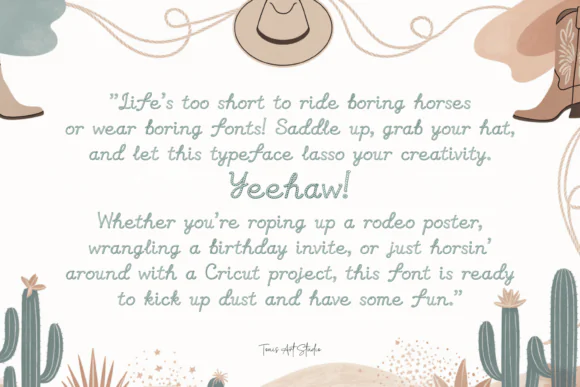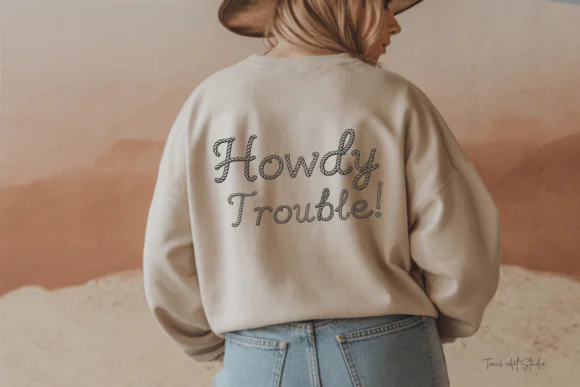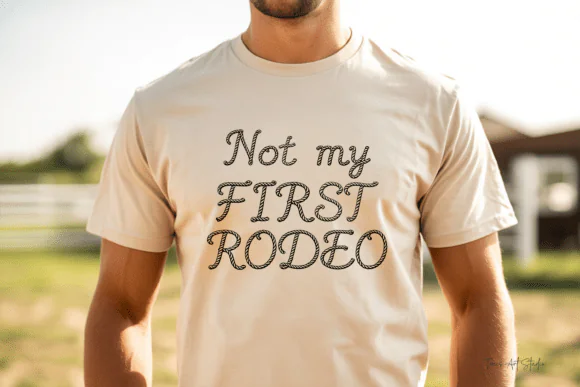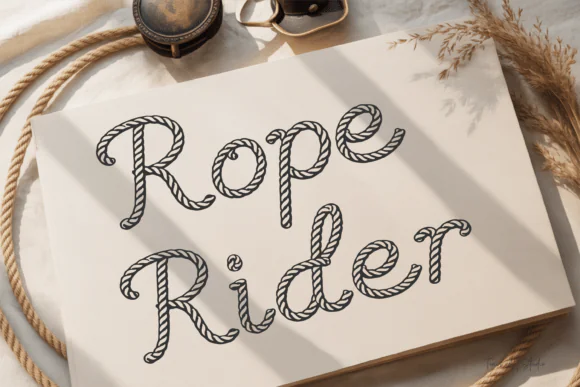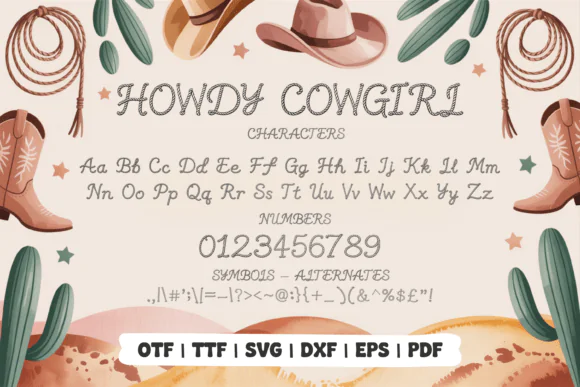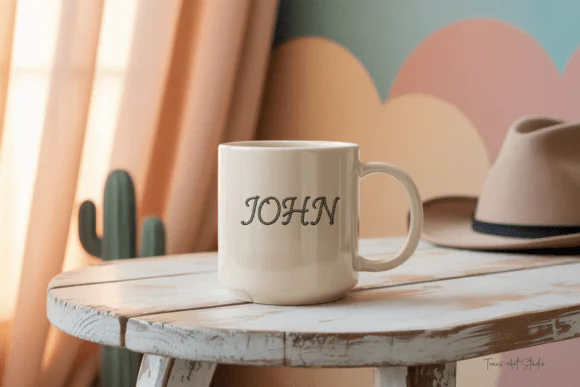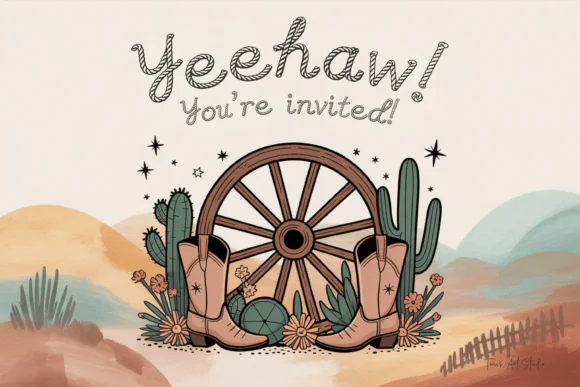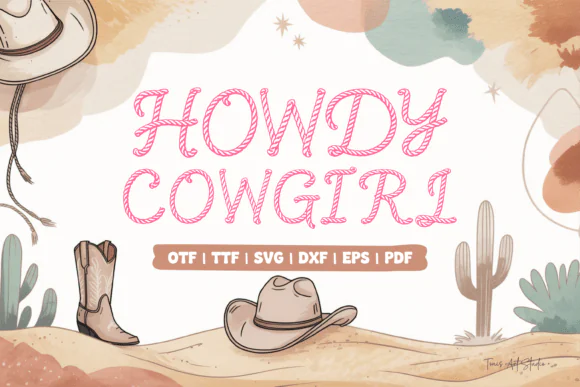
Add authentic cowboy character and western charm to your creative projects with Rope Rider Font, a handcrafted rope-style typeface inspired by classic western lassos, ranch life, and rodeo lettering. Designed with twisted rope strokes and smooth flowing curves, this font captures the rugged spirit of the Wild West while staying clean, readable, and easy to use.
Rope Rider is perfect for designers, crafters, apparel sellers, Cricut users, Silhouette creators, sublimation artists, DIY makers, and small business owners who want a unique western font for cowboy-themed projects. Each letter is carefully crafted to resemble real rope tension and movement, giving your typography a bold, rustic, and handmade look.